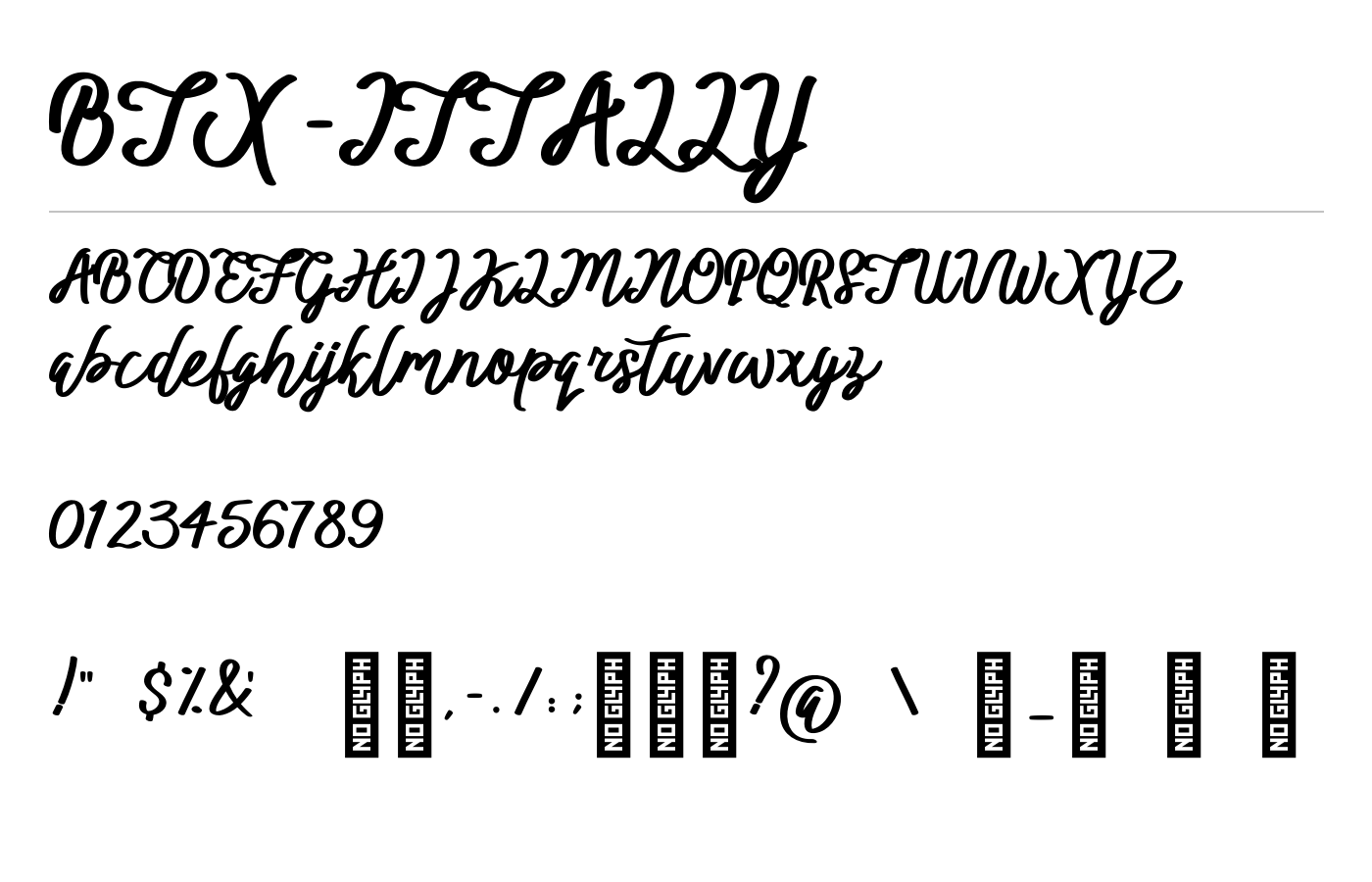
BTX-ITTALLY is a lively and elegant script font with smooth, flowing curves and a consistent medium weight that gives it a balanced presence. Its hand-lettered style adds a personal, artistic touch, making it ideal for branding, invitations, and creative projects that seek a warm and sophisticated feel. This font works well in headlines and logos where a stylish yet readable script is desired.
BTX-ITTALLY Font